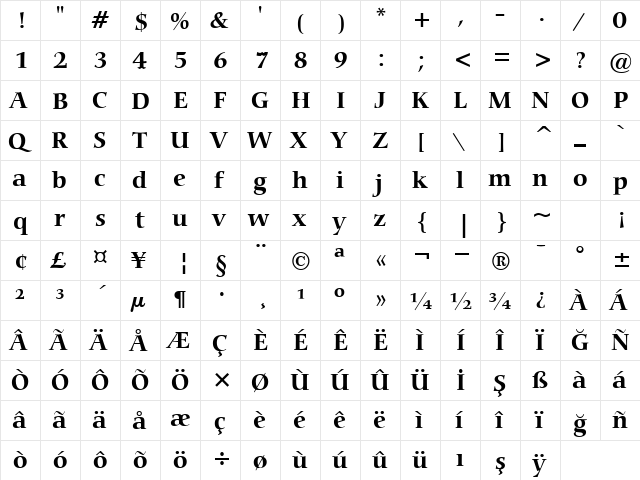
00569 Regular
Design Context for 00569 Typeface
00569 takes a measured approach to typography — its balanced proportions and neutral character make it a reliable workhorse for both digital and print work.